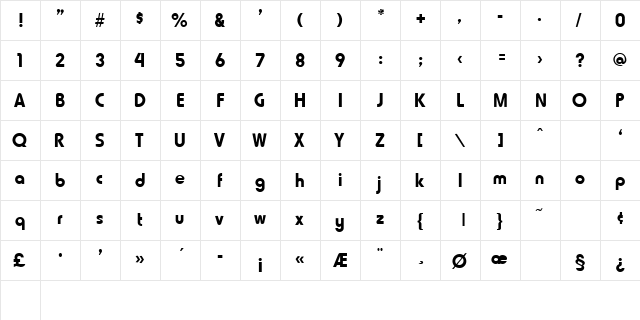
Shemp-Fat Regular
Design Context for Shemp-Fat Typeface
Shemp-Fat takes a measured approach to typography — its balanced proportions and neutral character make it a reliable workhorse for both digital and print work.